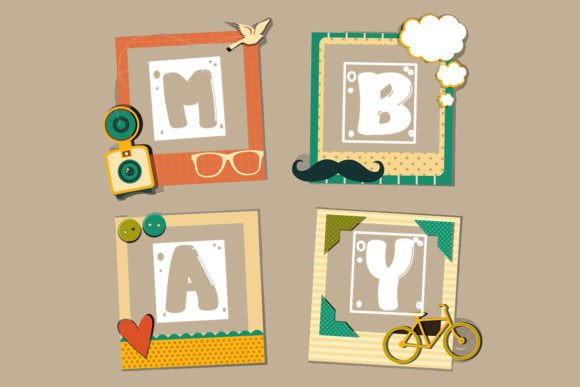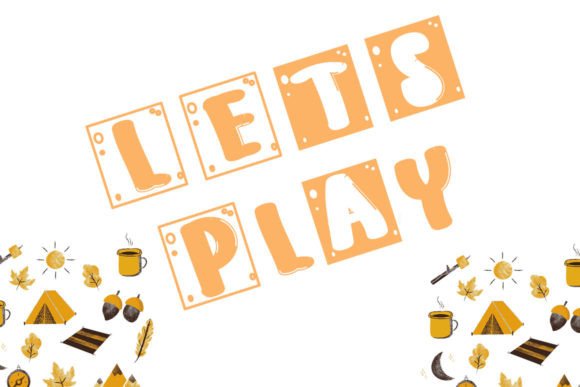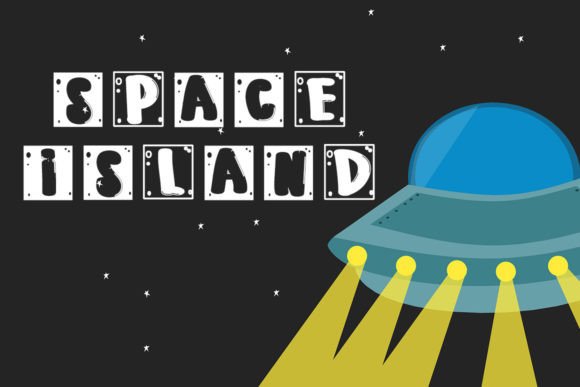
Meet Your New Best Friend: Every Body Font
Remember that moment when you’re brainstorming ideas for a new project and suddenly, a spark of creativity hits you? The ideas start flowing, and before you know it, you’re envisioning a world of colorful characters and whimsical illustrations. That’s exactly the kind of inspiration that the Every Body Font is designed to bring.
This fun and playful display font is perfect for bringing your cartoon-related designs, children’s games, and other creative projects to life. With its lovable touch, Every Body Font is sure to capture the attention of your audience and leave a lasting impression. As a designer, you’ll appreciate the versatility and flexibility that this font offers, making it a valuable addition to your toolkit.
Every Body Font Key Features
- Unique Characteristics: The font features a unique blend of modern and classic styles, with bold lines and rounded edges, making it perfect for creating a friendly and approachable atmosphere.
- Kerning and Ligatures: The font includes advanced kerning and ligature features, ensuring that text sets are beautifully arranged and easy to read.
Every Body Font Review
As a designer, I’ve had the chance to work with a wide range of fonts, and “Every Body Font” is definitely one of the more interesting ones. Here’s my honest review:
- Unique blend of modern and playful elements, making it perfect for projects that require a touch of whimsy.
- Excellent for use in digital applications, as it’s highly legible even at smaller font sizes.
- Supports a wide range of languages, making it a great option for global brands.
- Not suitable for formal or professional projects, as it can come across as too playful or immature.
- Some characters may not display correctly in certain font sizes or styles.
- Lack of a bold or italic version may limit its use in certain design scenarios.
Overall, I’d say “Every Body Font” is a solid choice for designers looking to add some personality to their projects. While it may not be suitable for every project, it’s a great option for those that require a bit of flair and fun.
Tips for Getting the Most Out of Every Body Font
For best results, use Every Body Font for body text, rather than headings.
Experiment with font sizes and line spacing to create a visually appealing design.
Combine Every Body Font with other fonts to create a unique and interesting typography.
Every Body Font is ideal for:
Body text in brochures, flyers, and posters.
Website content, including blog posts and articles.
Corporate communications, such as reports and newsletters.
Alternatives to “Every Body Font” for Designers
Open Sans is a popular sans-serif font that is highly legible and versatile. It works well for both body text and headings, making it a great alternative to Every Body Font. Open Sans is particularly useful for digital applications, such as websites and mobile apps.
Comparison to Every Body Font: Open Sans is more condensed and modern, making it suitable for contemporary designs. Every Body Font, on the other hand, has a more classic feel.
Lato is a sans-serif font that is designed to be highly readable and stylish. It has a unique, modern feel that makes it suitable for a wide range of designs, from minimalist to bold. Lato is a great choice for body text and headings, and it works particularly well for titles and headings.
Comparison to Every Body Font: Lato is more modern and edgy, while Every Body Font has a softer, more classic feel.
Montserrat is a sans-serif font that is inspired by urban typography. It has a bold, modern feel that makes it suitable for titles, headings, and body text. Montserrat is particularly useful for digital applications, such as websites and mobile apps.